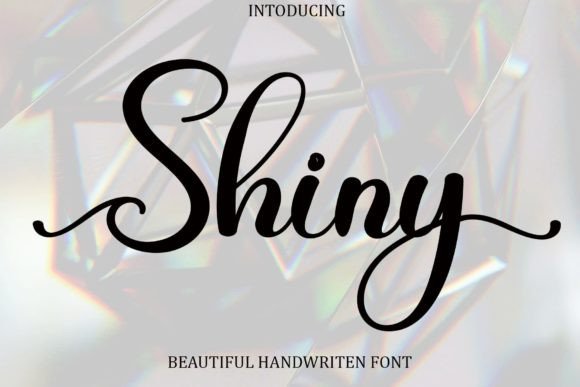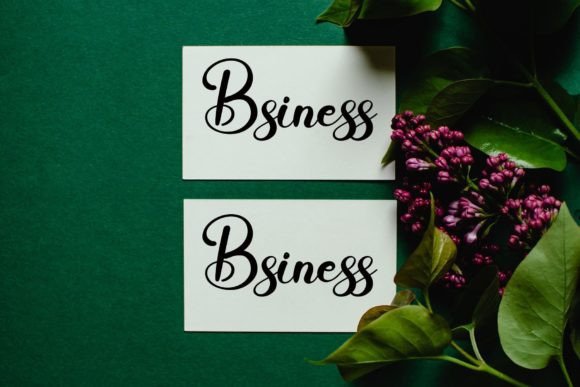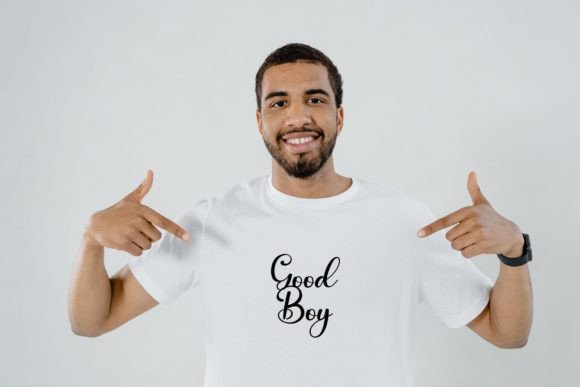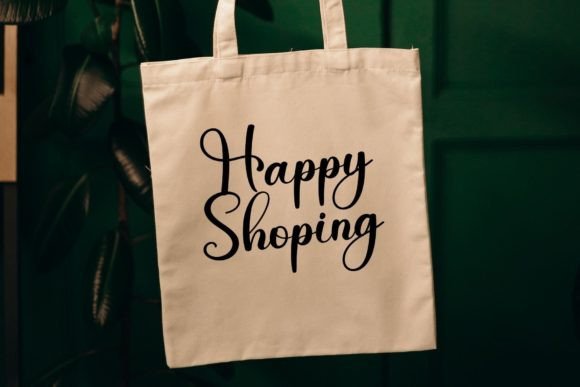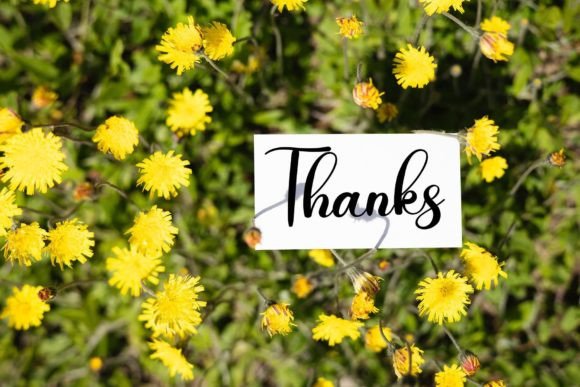
Shiny Font
“Shiny Font: Sweet Elegance in Every Stroke
Introducing Shiny, a sweet and beautiful handwritten font that adds a touch of luxury and sparkle to your design projects. With characters that dance along the baseline, Shiny brings an element of charm and elegance to any creative endeavor. This font is perfect for those who seek to infuse a luxurious spark into their designs, making each project stand out with its unique and delightful aesthetic.
Shiny goes beyond being just a font; it’s a design statement that captures attention with its sweet and elegant strokes. The characters in Shiny create a visual dance that elevates the overall appeal of your projects.
The sweet elegance of Shiny shines through in its ability to transform any design into a luxurious masterpiece. Whether you’re working on invitations, posters, or branding materials, Shiny adapts effortlessly to add a touch of sophistication.
For designs that need a luxurious spark, Shiny becomes the perfect choice. Its handwritten charm brings a sense of uniqueness, making it ideal for projects that require a blend of sweetness and elegance.
In posters and advertisements, Shiny serves as a distinctive element, creating a visual appeal that captivates the audience. The font’s dancing characters contribute to a lively and dynamic design.
Shiny’s versatility extends to various design projects, making it suitable for branding, packaging, and more. The font’s unique character enhances the overall aesthetics, creating a visually pleasing and memorable experience.
In conclusion, Shiny is more than just a font; it’s a design companion that brings sweet elegance to your creative toolkit. Let Shiny be the brushstroke that adds a luxurious spark to the beauty of your projects. Embrace the charm and sophistication of Shiny, and watch as it transforms your ideas into delightful and memorable experiences.”